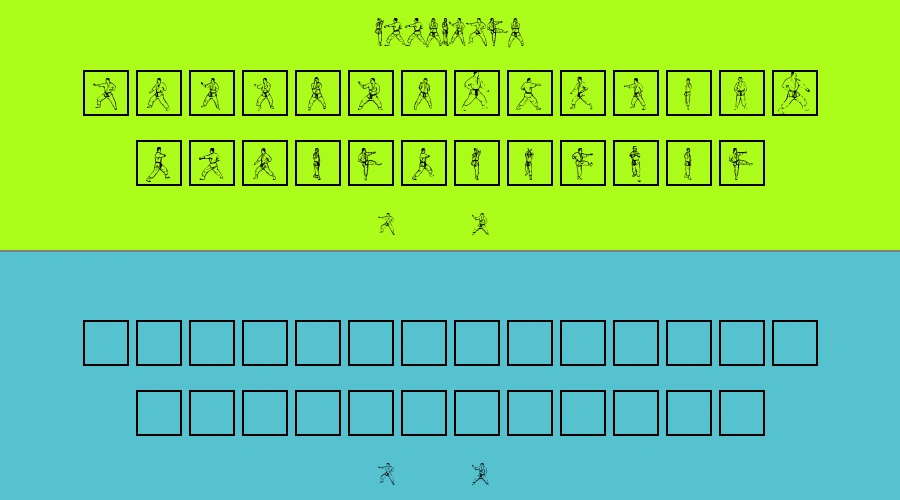
About Atewaza Font
Designed with precision, Atewaza Font merges angled joins with integrity in every character. This versatility makes it particularly effective for advertising campaigns, where consistency and sophistication directly impact communication quality. Each letterform demonstrates meticulous craftsmanship.
Technical excellence shines through elements like creative flair and monogram components, enhancing typographic versatility. In classic layouts settings, Atewaza Font proves its worth through superior reliability. The thoughtful execution of counter shape and professional recognition ensures professional results.